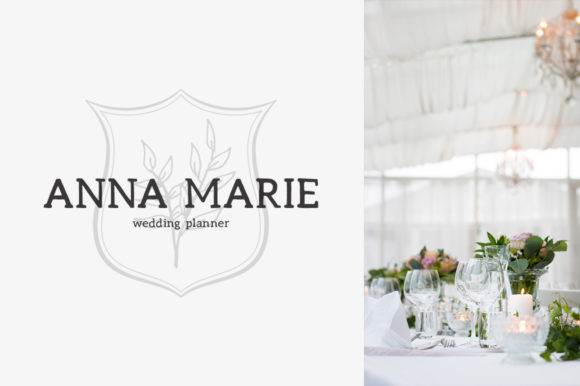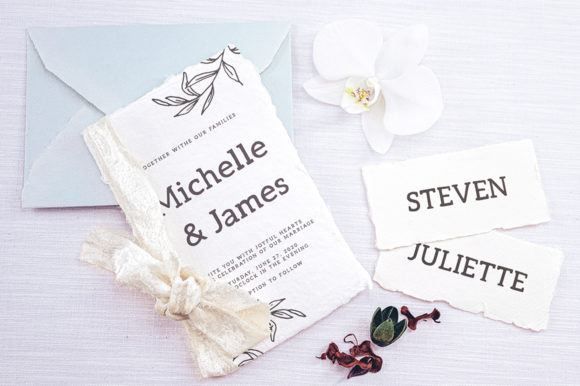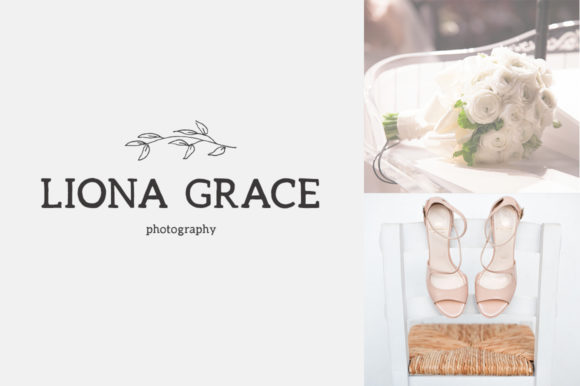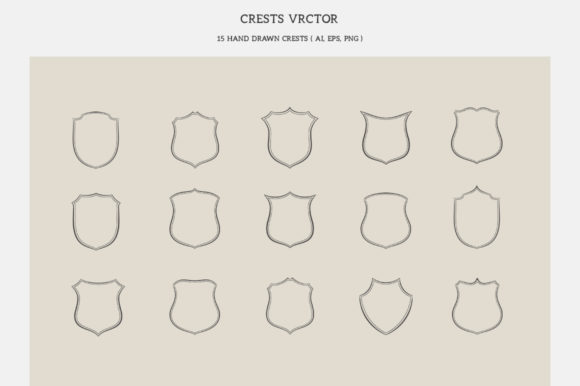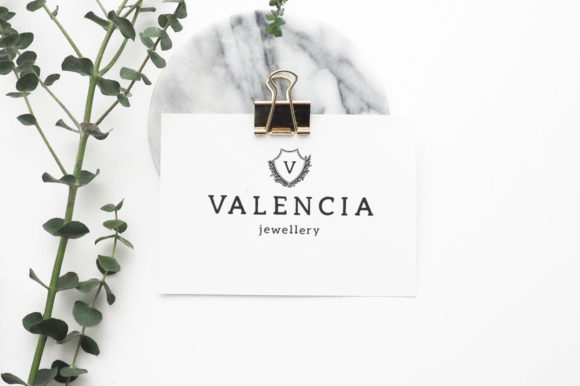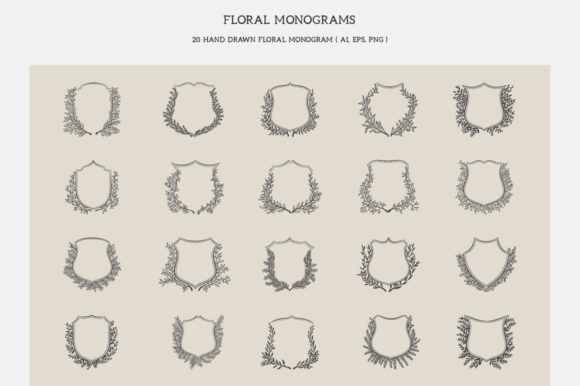
Discover the Elegance of Camilla Font: A Perfect Blend of Classic and Modern
In the world of typography, few fonts manage to strike a balance between elegance and modernity. Camilla Font is one such exceptional serif font that embodies the perfect blend of classic calligraphic influences and contemporary freshness. Designed to simplify elegance, Camilla Font is an outstanding choice for designers and crafters looking to add a touch of sophistication to their projects.
Classy Calligraphic Influences
Camilla Font’s design roots are deeply embedded in traditional calligraphy, evident in its beautiful, flowing lines and serifs. The font maintains a classy, refined feel that is reminiscent of hand-written calligraphy, yet it does so with a modern twist that makes it highly versatile. This blend of old and new ensures that Camilla Font can be used in a variety of contexts, from formal letterheads to more creative stationery designs.
Contemporary and Fresh
What sets Camilla Font apart from more traditional serif fonts is its contemporary feel. While it pays homage to classic calligraphy, it does so with a freshness that makes it highly suitable for modern design projects. Whether you’re working on a branding project, a wedding invitation, or a fashion magazine, Camilla Font brings a level of sophistication and elegance that is hard to match.
Hand-Drawn Botanical Doodles
One of the standout features of Camilla Font is its inclusion of gorgeous hand-drawn botanical doodles. These illustrations add an extra layer of charm and personality to the font, allowing designers to incorporate a natural, organic feel into their work. The doodles can be used to enhance letterheads, titles, and stationery, making each project not only elegant but also uniquely personal.
Versatility for a Wide Range of Crafty Ideas
The versatility of Camilla Font is one of its most appealing qualities. Designers and crafters can use this font for a wide range of projects, including:
- Letterheads: Add a professional yet personal touch to your business correspondence.
- Titles: Create stunning headings for articles, blog posts, and books that capture the reader’s attention.
- Stationery: Design beautiful, one-of-a-kind stationery sets for personal or business use.
- Branding: Use Camilla Font to create a cohesive and elegant brand identity.
- Wedding and Event Invitations: Make your invitations stand out with a touch of elegance and sophistication.
Why Choose Camilla Font?
With so many fonts available to designers and crafters, why choose Camilla Font? The answer lies in its unique blend of classic elegance and modern freshness. Here are a few reasons why Camilla Font stands out:
- Elegance: Camilla Font brings a level of sophistication and elegance that is hard to find in other serif fonts.
- Versatility: Its versatility makes it suitable for a wide range of design projects.
- Uniqueness: The hand-drawn botanical doodles included with the font add a unique touch to any project.
- Readability: Despite its elegant and decorative nature, Camilla Font remains highly readable, making it perfect for both headings and body text.
| Font Name | Camilla Font |
| Author | Nirmala Creative |
Camilla Font is a truly outstanding serif font that simplifies elegance into a form that feels both classic and contemporary. Its classy calligraphic influences, combined with its fresh and modern feel, make it an excellent choice for designers and crafters looking to add a touch of sophistication to their projects. With its gorgeous hand-drawn botanical doodles and versatility for a wide range of crafty ideas, Camilla Font is sure to become a favorite in any designer’s toolkit.
Whether you’re working on a professional design project or a personal crafting endeavor, Camilla Font offers the perfect blend of elegance and modernity to make your work stand out.